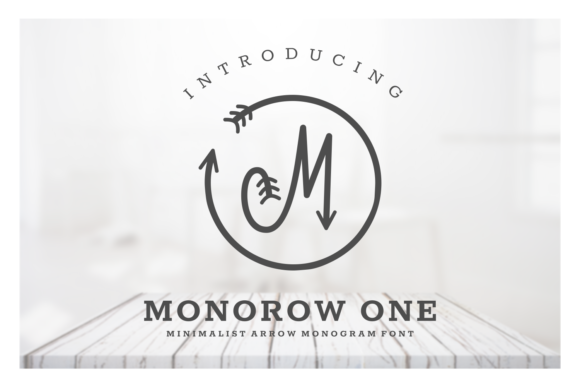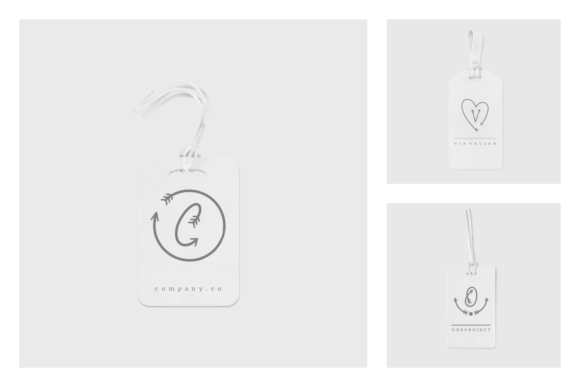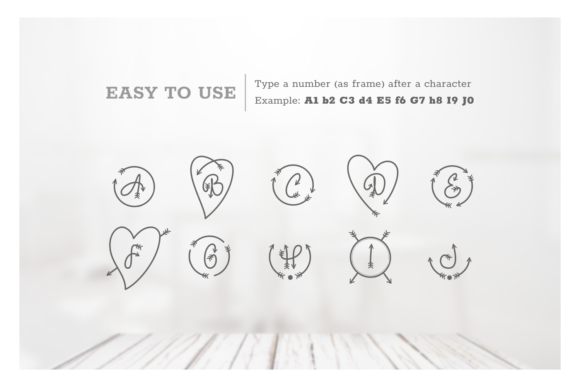
Monorow Font
About Monorow Font
Monorow is a minimalist arrow monogram font.
Within seconds you can create stunning arrow decorated monogram frames by simply combining a character with a number, e.g. A1, b2, C3, etc.
You can pick 10 frames (0-9) and combine with with any letter. The arrows in Monorow come in different shapes, from circular to heart-shaped, and from an open circle to arrows shooting through a heart/circle.